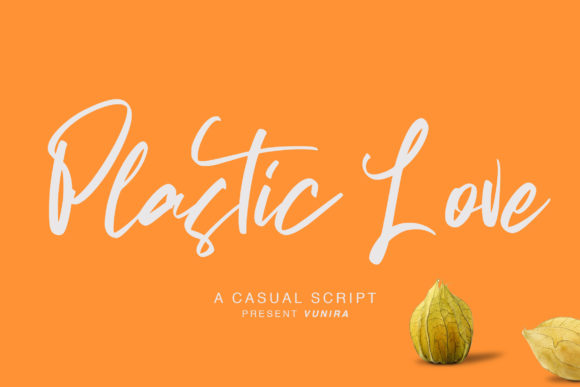
Journey into the realm of Plastic Love Font, a calligraphic masterpiece that captivates with its charm and elegance. Inspired by the beauty of handwritten letters, this script font exudes a sense of authenticity and intimacy, making it the perfect choice for those seeking a touch of heartfelt expression in their digital creations.
With its graceful curves and flowing lines, Plastic Love Font dances across the screen, evoking a sense of nostalgia and romance. Each character carries a distinct personality, adding depth and dimension to your words. Whether you're crafting wedding invitations, thank-you cards, or heartfelt messages, this font will elevate your designs with a touch of personal flair.
Designed with meticulous attention to detail, Plastic Love Font features a comprehensive set of glyphs, including uppercase and lowercase letters, numerals, and a wide range of punctuation marks. This versatility makes it suitable for a diverse range of projects, from personal correspondence to professional documents. Whether you're a creative artist, a business professional, or simply someone who appreciates the beauty of handwritten typography, Plastic Love Font is the perfect choice for adding a touch of elegance and sophistication to your digital creations.
Indulge in the charm of Plastic Love Font and let your words take on a new life. From the delicate strokes of a love letter to the bold statements of a business proposal, this font will transform your digital creations into captivating works of art. Experience the joy of self-expression and heartfelt communication with Plastic Love Font, the ultimate choice for those who seek beauty, authenticity, and timeless elegance in their digital designs.